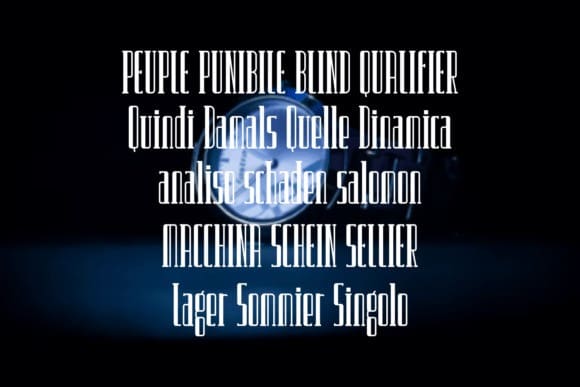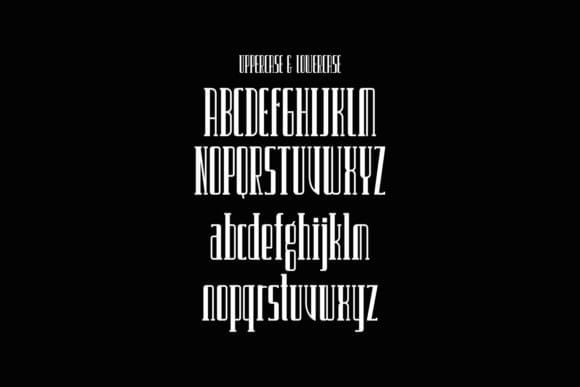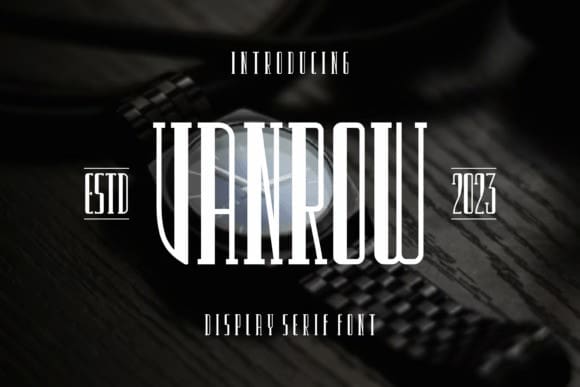
Vanrow Typeface
Vanrow Typeface is a bold and assertive serif font. No matter the topic, this font will be an incredible asset to your fonts’ library, as it has the potential to elevate any creation.